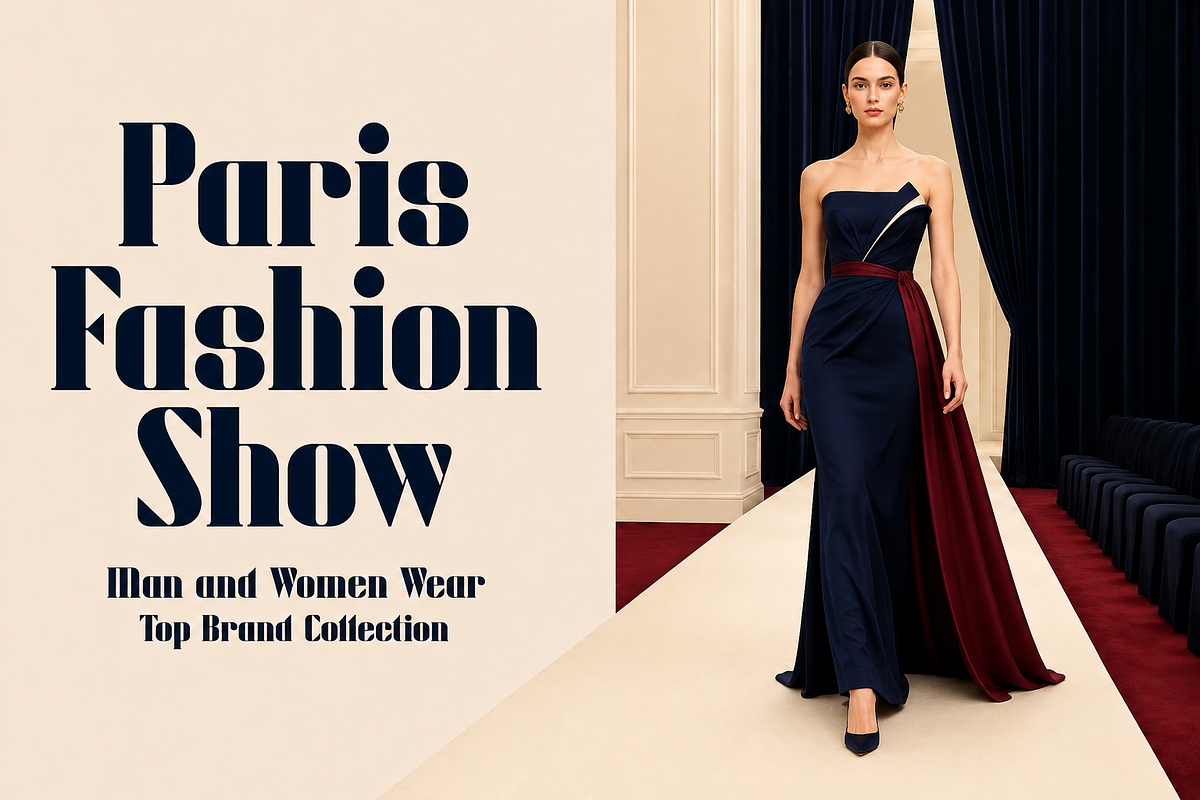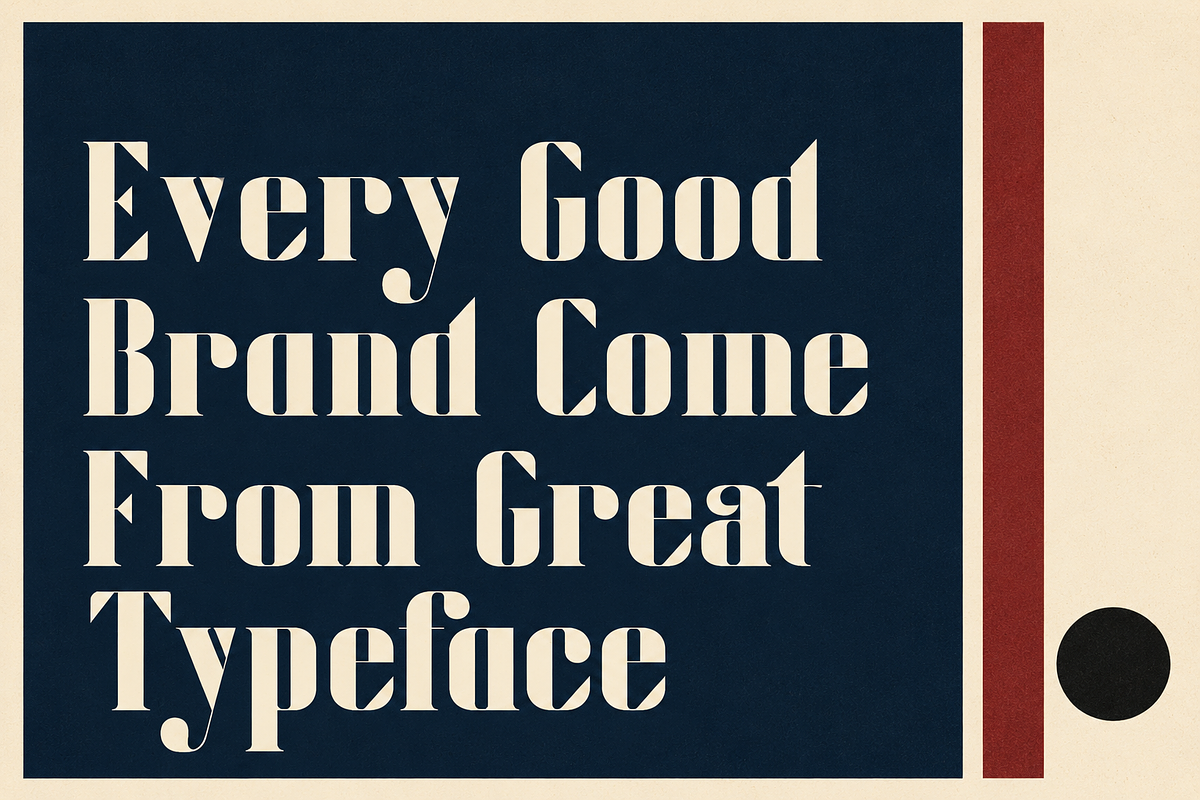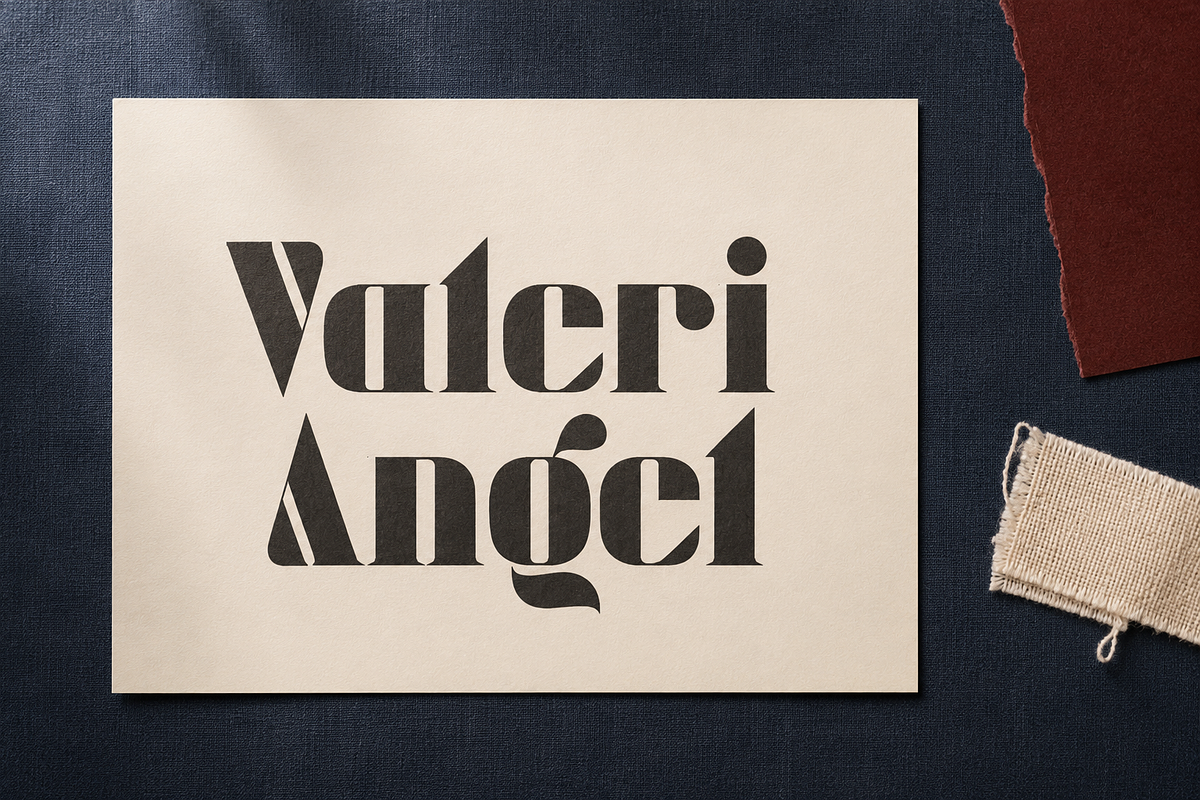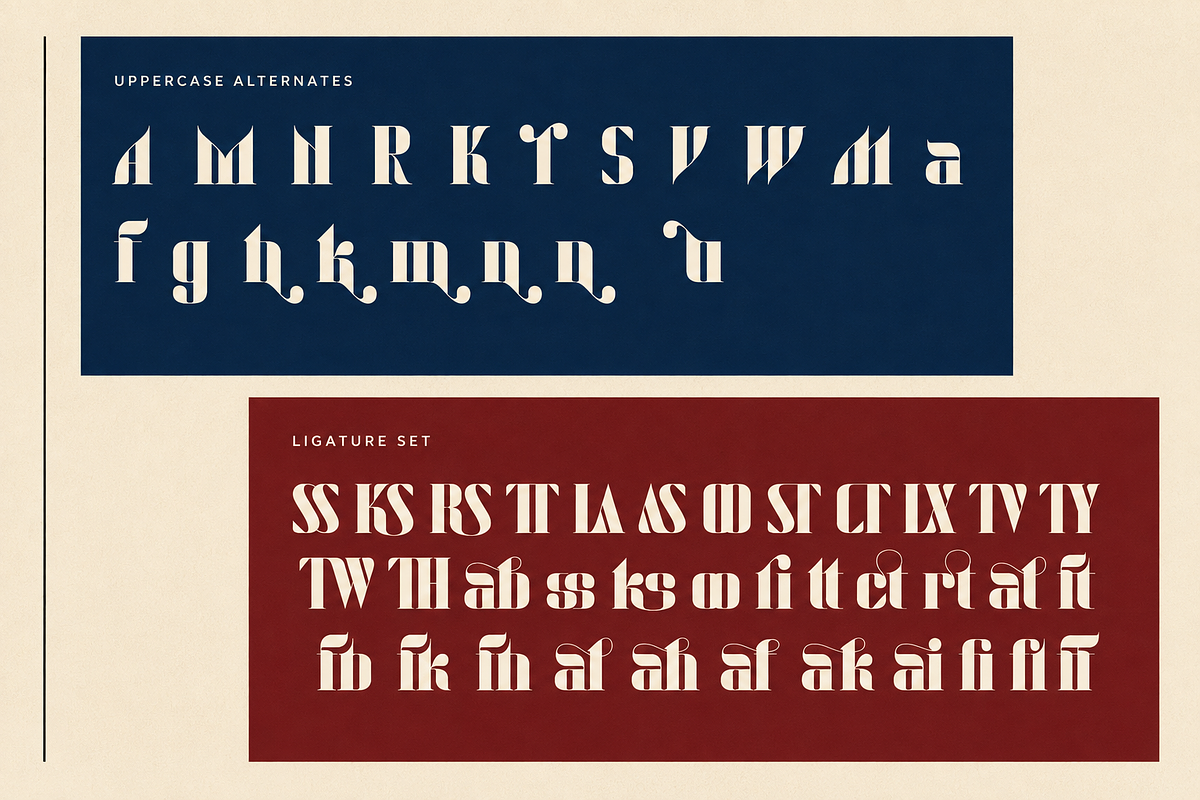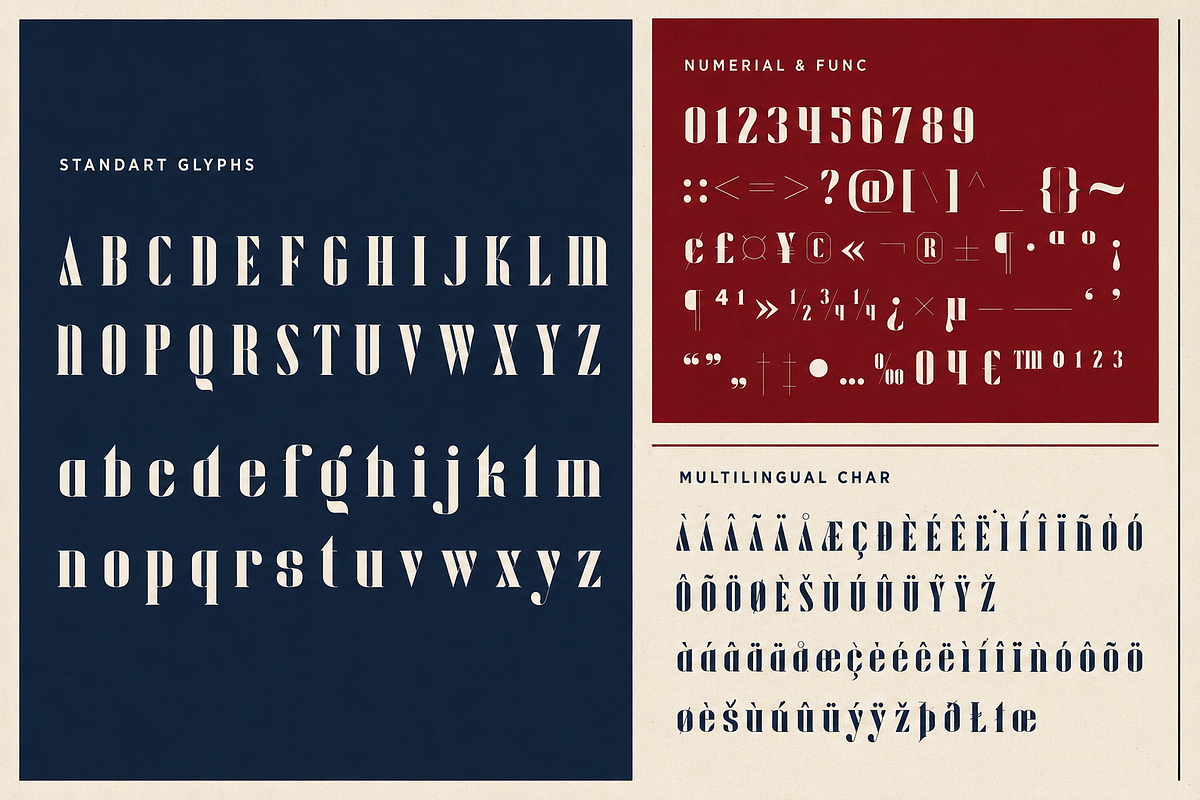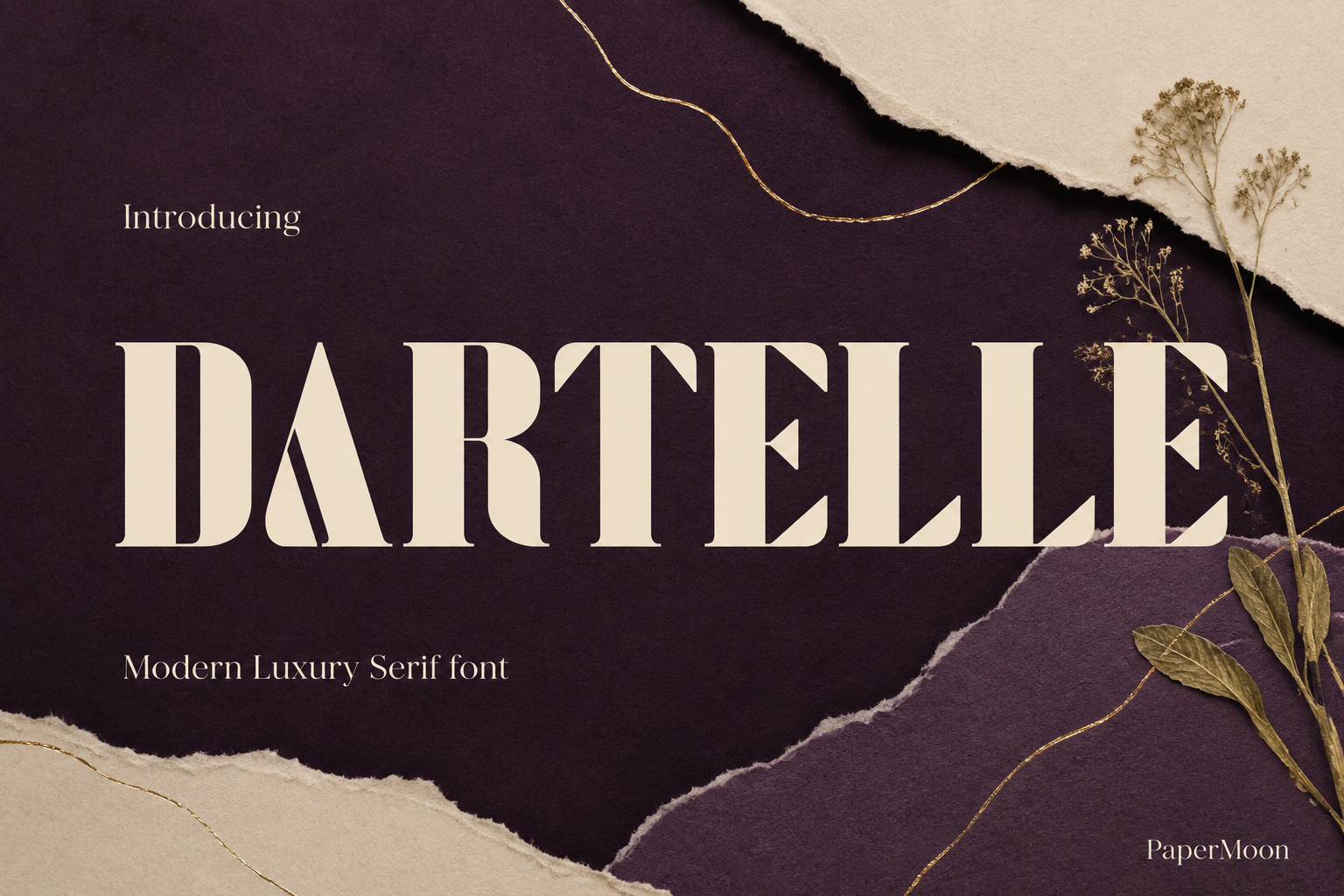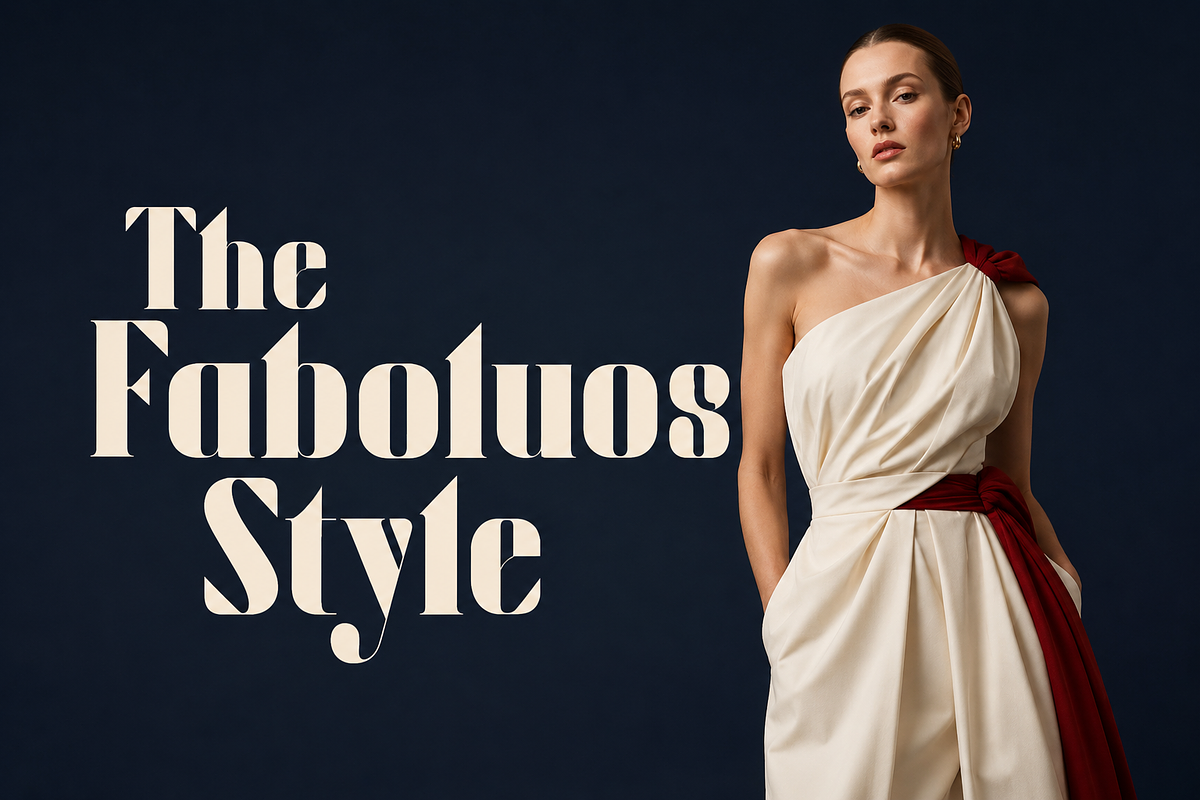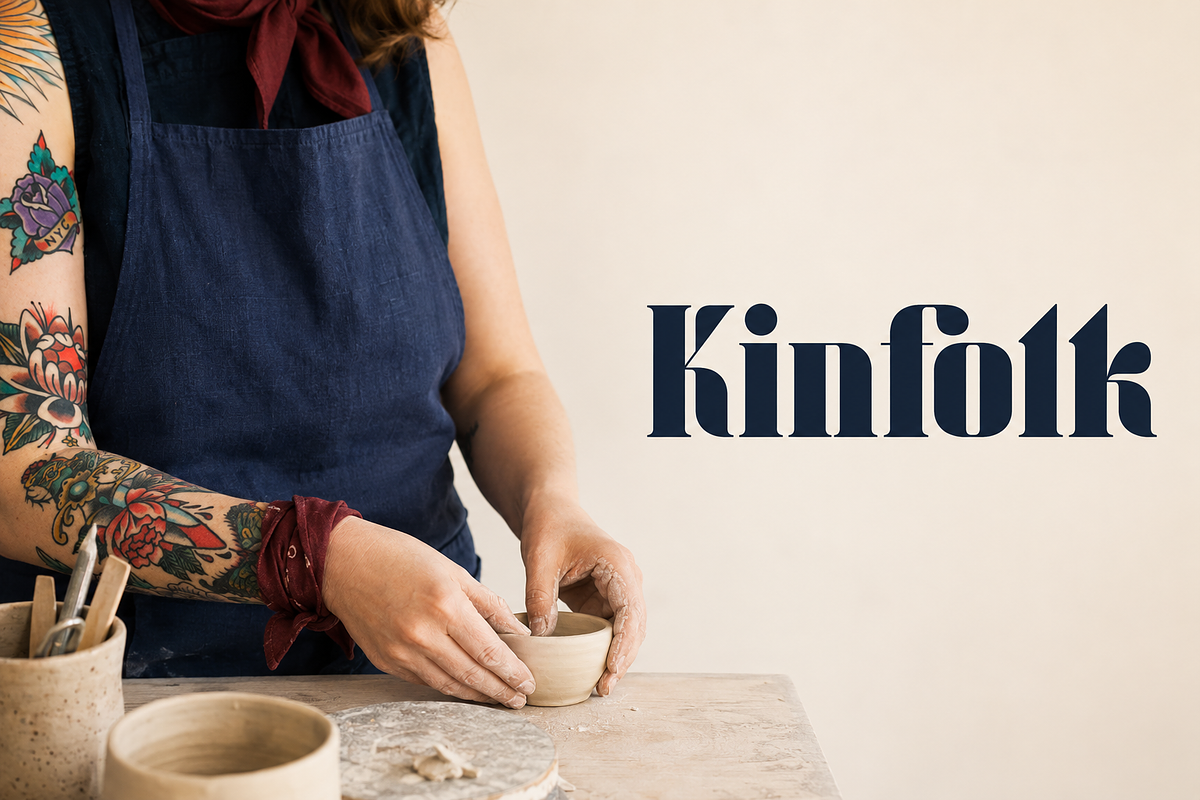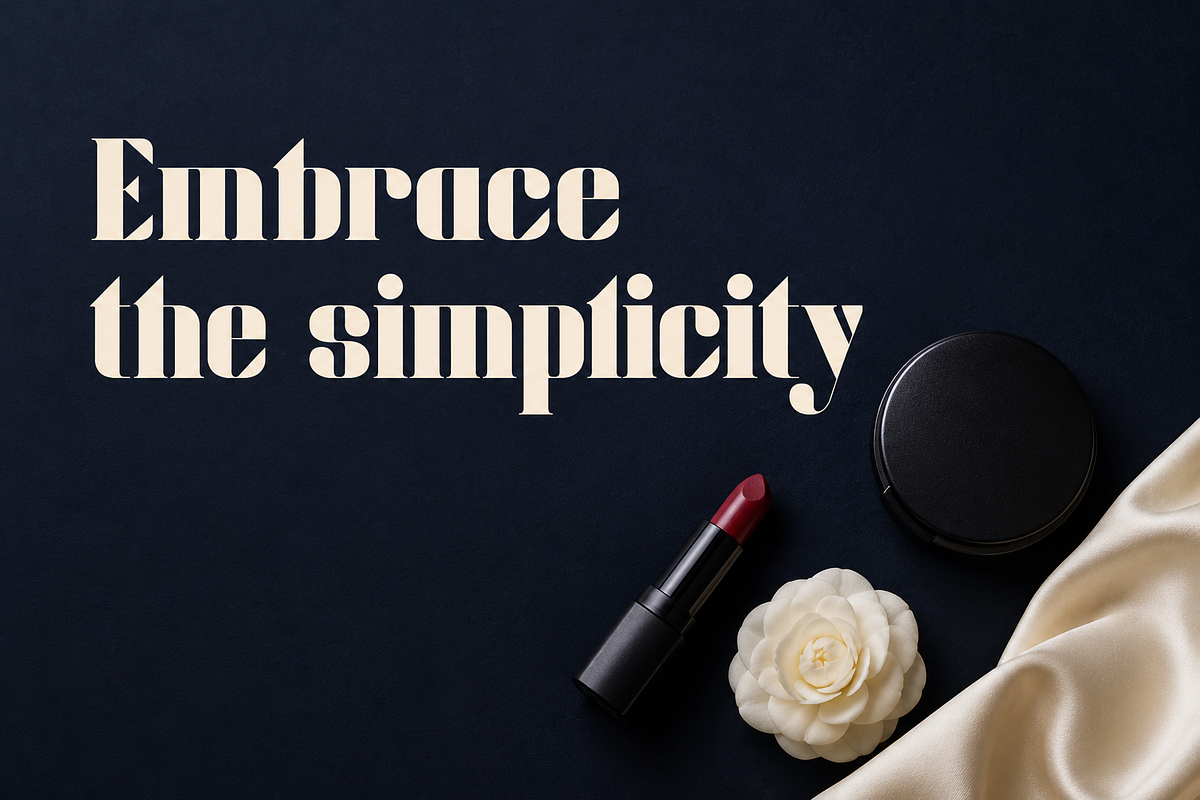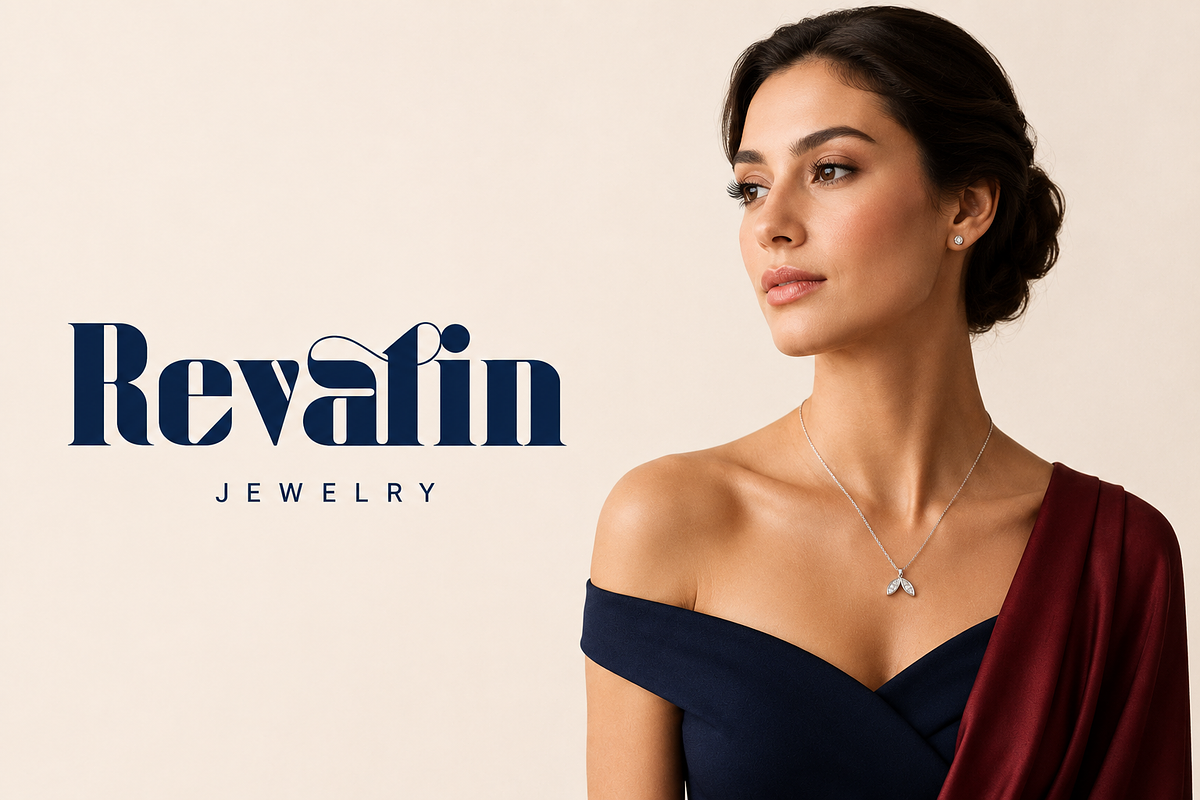
Dartelle - Modern Serif Font Duo
Most luxury serif fonts lean either vintage or icy. Dartelle sits deliberately between them - a modern serif font with elegant, high-contrast forms and a refined editorial character that premium identities are built on. It is a font duo pairing Regular and Italic styles, each drawn with sculpted serifs and a polished, fashion-forward finish that feels as natural on a runway lookbook as it does on a wedding invitation.
Regular + Italic duo: A confident upright for headlines, logos and wordmarks, plus a graceful italic that adds movement to quotes, captions and editorial pull-quotes.
Stylistic alternates: Two alternate sets (ss01 and ss02) plus single and contextual alternates let you reshape letters to match the mood of every project.
Ligatures and typographic details: Standard and discretionary ligatures, fractions, ordinals and superscripts keep fine typesetting looking considered at any size.
Full character coverage: Basic Latin and Latin-1 Supplement with a bonus Latin Extended-A set (Œ, œ, Š, š, Ž, ž, Ł, ł, Đ, đ and more) for refined European typesetting.
Use it for:
Luxury branding, fashion and beauty identities
Wedding invitations and event stationery
Editorial headlines, magazine layouts and lookbooks
Logos, watermarks, labels and premium packaging
Elegant social media and advertising typography